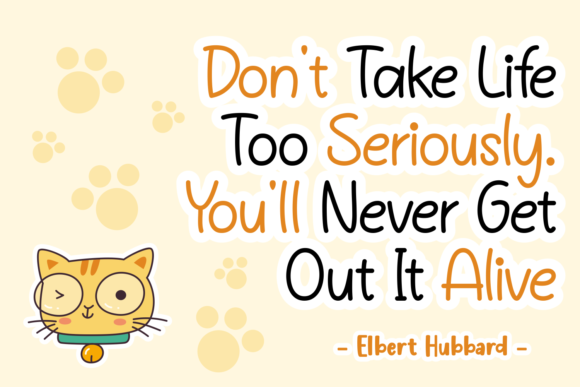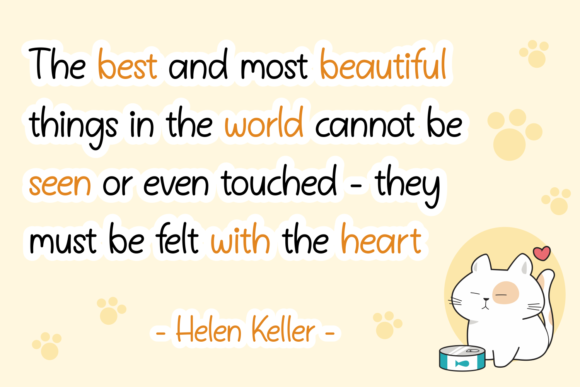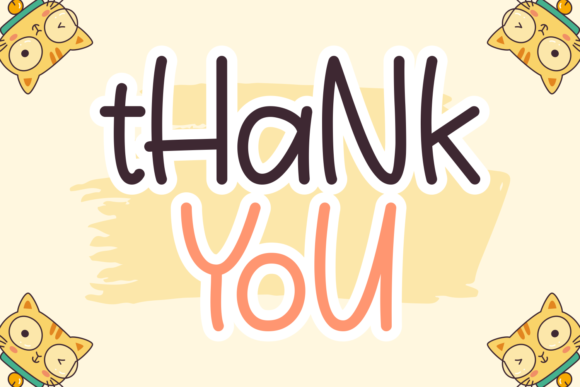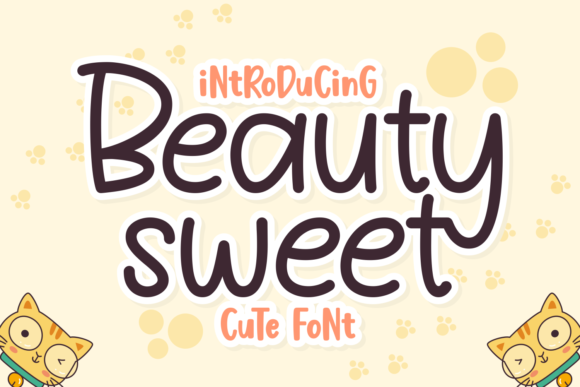
Introduction to Beauty Sweet Font
Beauty Sweet is a quirky and sweet handwritten font.
You can use it for various projects, such as blog posts, logos, branding, ads, invitations, greeting cards, planners, photo albums, decorations, and much more Add it to any of your designs, and enjoy the results.
Key Features of Beauty Sweet Font
Why Choose Beauty Sweet Font?
Beauty Sweet Font offers exceptional quality and versatility, making it a valuable addition to your design toolkit. Whether you’re creating for personal projects or commercial use, Beauty Sweet Font delivers professional results.